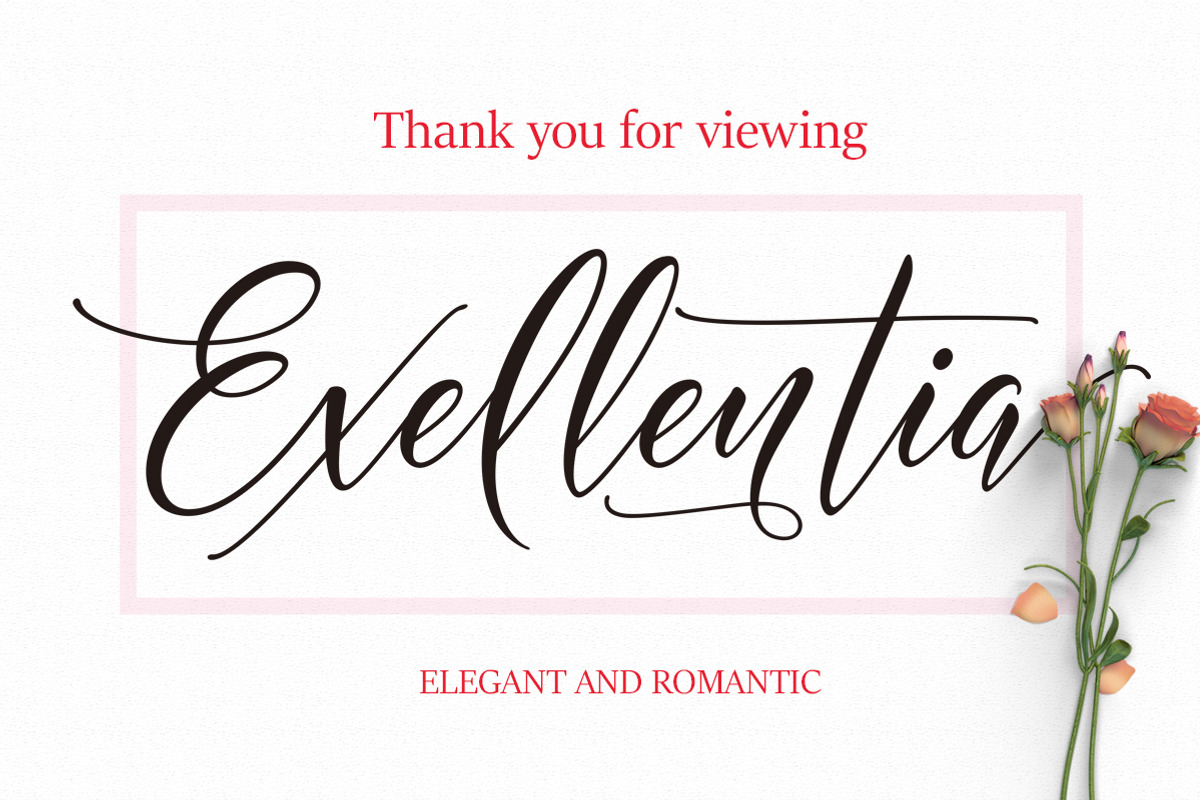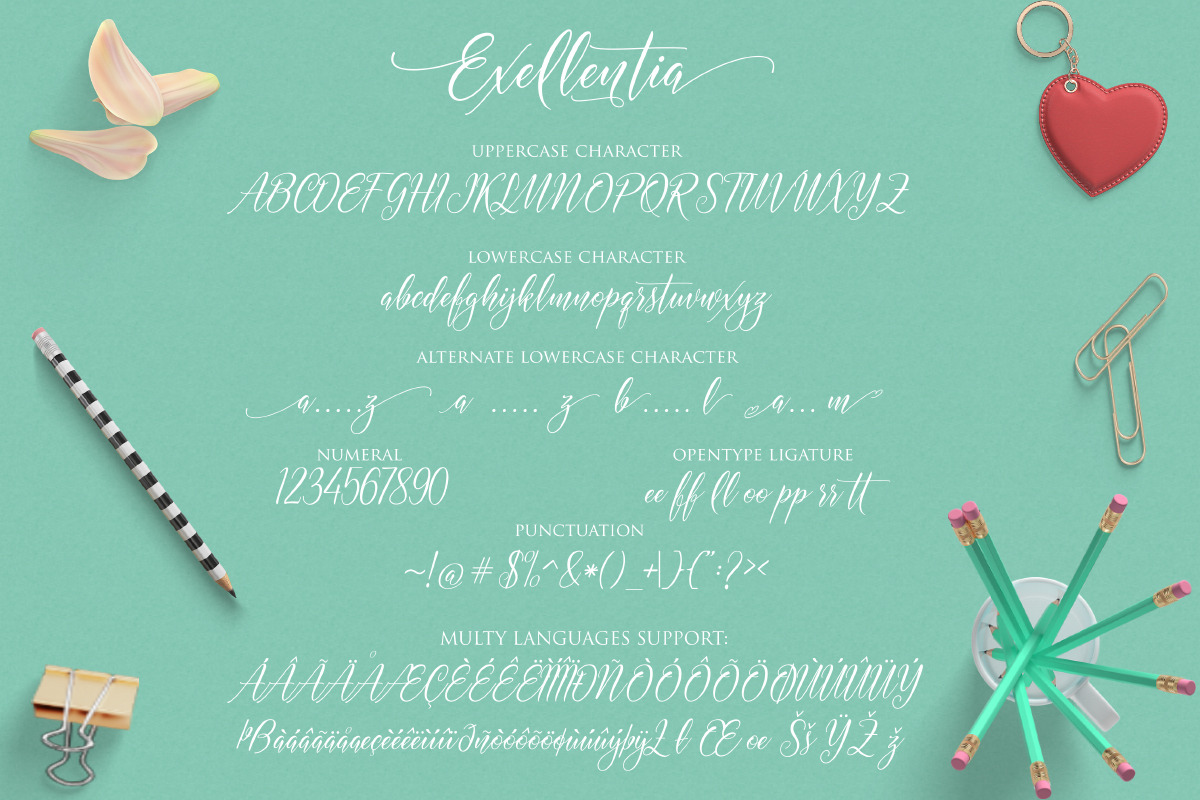
Exellentia
The Exellentia Font is a beautiful modern font that comes with 524 glyphs. It features smooth lines and characters that weld together nicely. The font has a modern calligraphy style and features beautiful swashes. It is easy to read and fun to work with. There is no doubt that you will get professional results with this font and you will be able to amaze your customers.The Exellentia Font has given PUA unicode (specially coded fonts), with tons of alternate characters. The pack can be accessed in full by any crafter or designer, without the requirement for extra design software, COMPATIBLE WITH SILHOUETTE & CRICUT DESIGN SPACE
Language Support : Albanian, Basque, Breton, Chamorro, Danish, Dutch, English, Faroese, Finnish, French, Frisian, Galician, German, Icelandic, Italian, Malagasy, Norwegian, Portuguese, Swedish
The Features of this fonts is: Contextual Alternates, Standart ligatures, Stylistic Alternates, Stylistic Sets,